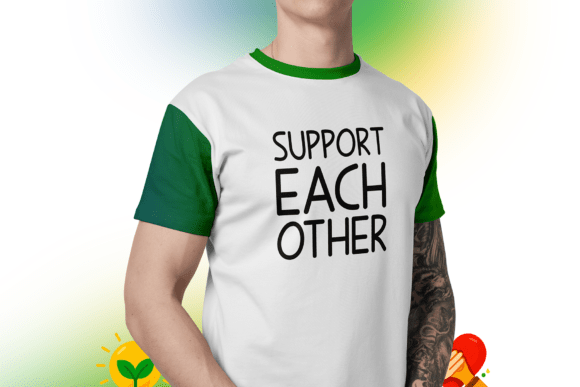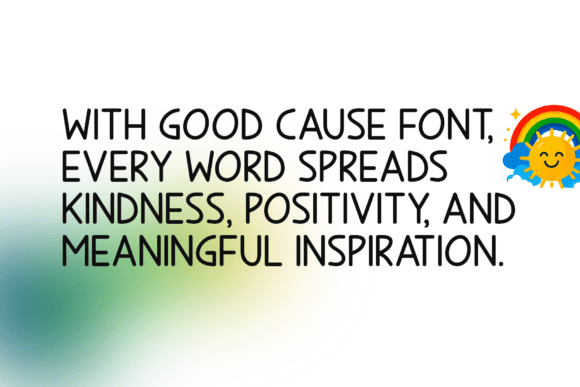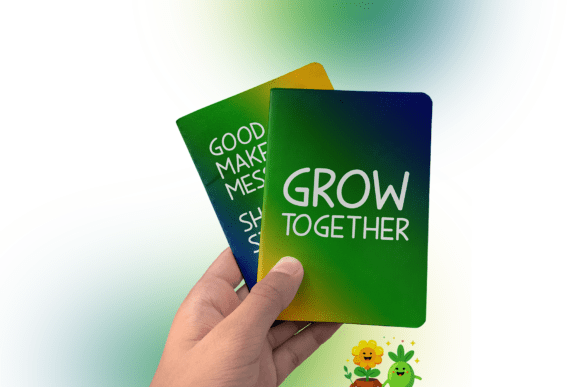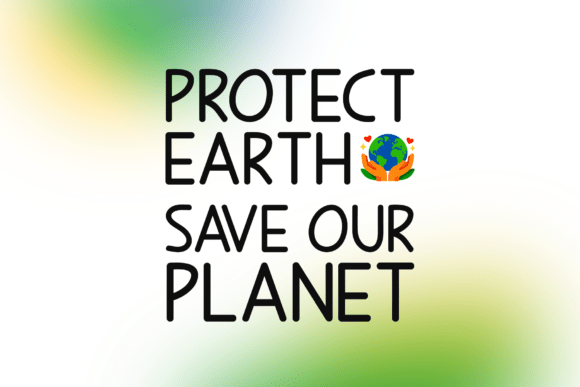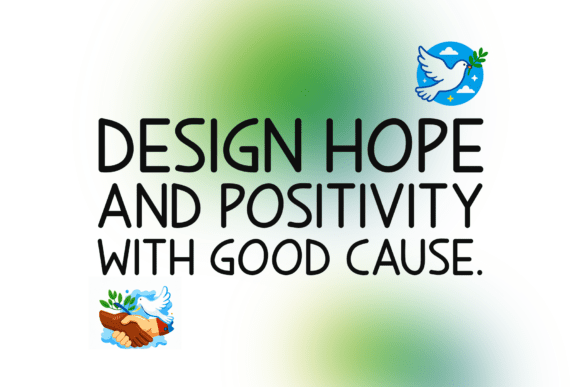
Spreading Positivity, One Letter at a Time
As designers, we’ve all had those moments where we want to convey a message that goes beyond just words. Maybe it’s a campaign to raise awareness for a social cause, or a poster to inspire a friend who’s going through a tough time. Whatever it is, we know that the right typography can make all the difference.
That’s where the Good Cause Font comes in – a cheerful and playful display font designed to spread positivity and kindness through creative typography. Its smooth curves and friendly letterforms create a warm, uplifting look that instantly attracts attention. Whether you’re designing for a poster, social media graphic, or inspirational quote, the Good Cause Font adds a bright and positive personality to every message.
Good Cause Font Key Features
- Font Family: Good Cause is a sans-serif font family with 6 weights (Light, Regular, Medium, SemiBold, Bold, and ExtraBold).
- Font Size: Supports font sizes ranging from 8 to 72 points, with precise control over font scaling.
- Resolution: Optimized for high-resolution displays (Retina, 4K, etc.) with clear readability at small font sizes.
- Unique Characteristics: Good Cause features a unique blend of modern and classic design elements, including rounded corners and subtle flair on the terminals.
- Language Support: Supports a wide range of languages, including Latin, Cyrillic, Greek, and many others, with comprehensive Unicode coverage.
Good Cause Font Review
I recently had the chance to work with the “Good Cause Font” and I’m excited to share my thoughts on this new addition to the font family. ✨ One thing that stands out is its versatility. The font is available in multiple weights and styles, making it perfect for a wide range of designs, from logos to body text. The clean and modern design also makes it easy to read and understand, even at smaller font sizes.
- ⚠️ The font may not be suitable for very small text sizes due to its clean design.
- ⚠️ Some users may find the font too modern or minimalist for their taste.
Overall, I’m impressed with the Good Cause Font. It’s a solid addition to any designer’s toolkit, and its open-source nature makes it a great option for those looking for a free font that’s easy to use. While it may have some limitations, the font’s versatility and clean design make it a great choice for a wide range of projects.
Tip: To get the most out of the Good Cause Font, use it for headings and titles to create a visually appealing contrast with your body text.
Tip: To get the most out of the Good Cause Font, use it consistently throughout your document to create a cohesive look and feel.
The Good Cause Font is ideal for:
- Non-profit organization branding.
- Charity event promotions.
- Social awareness campaigns.